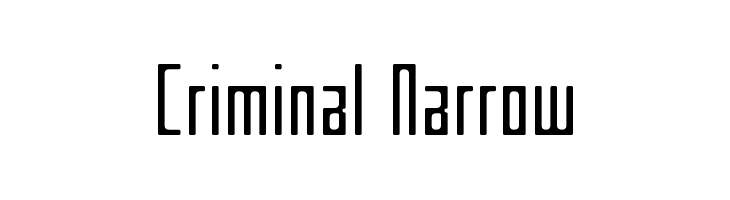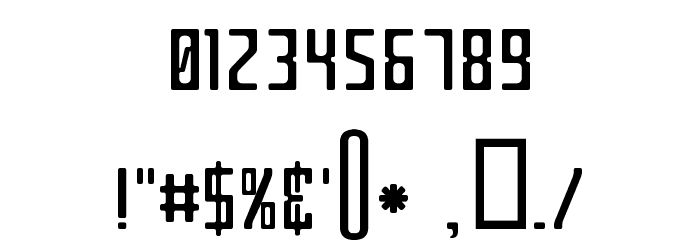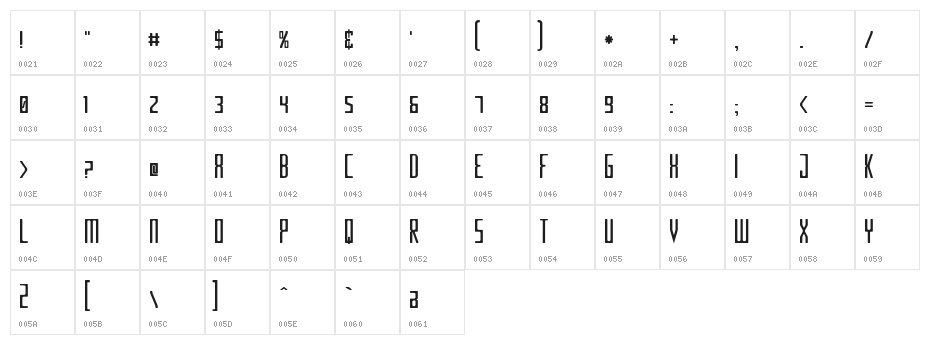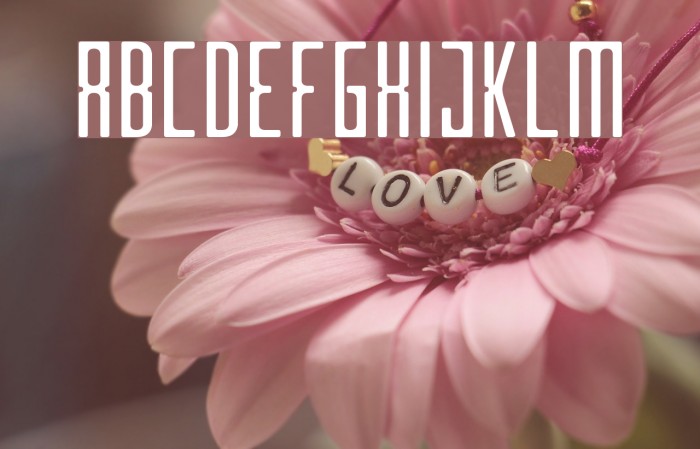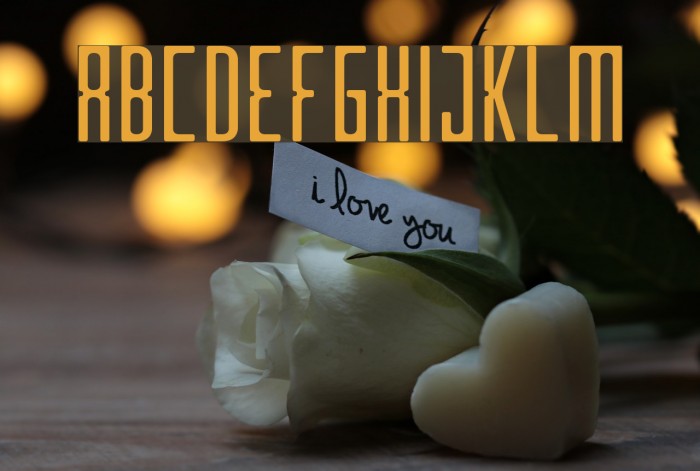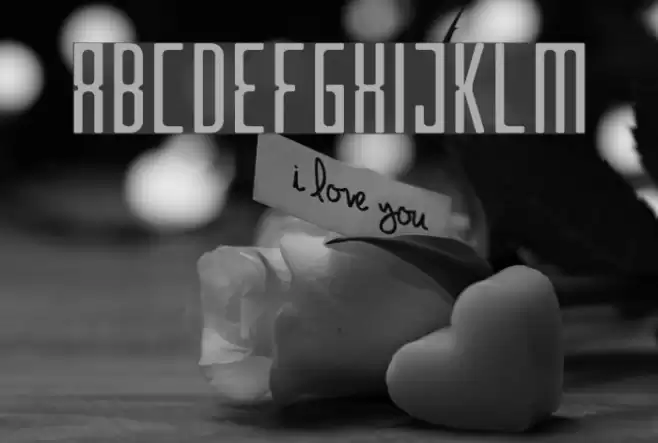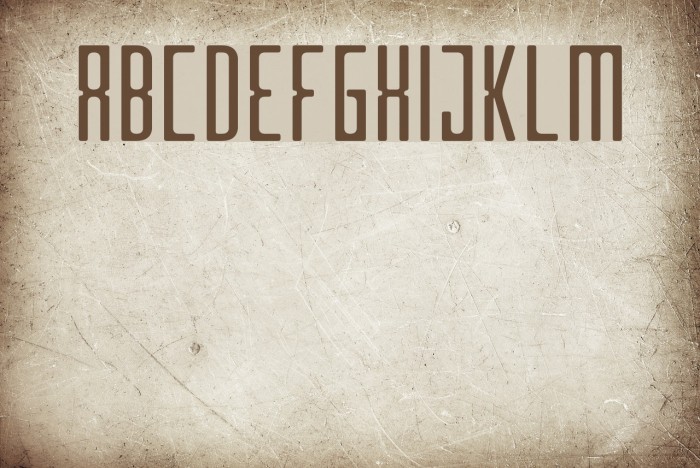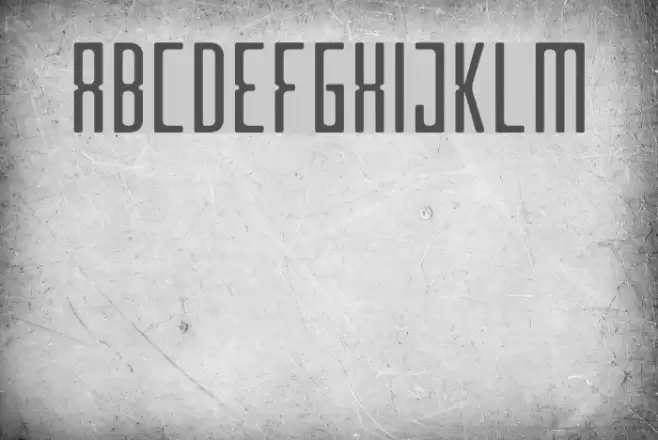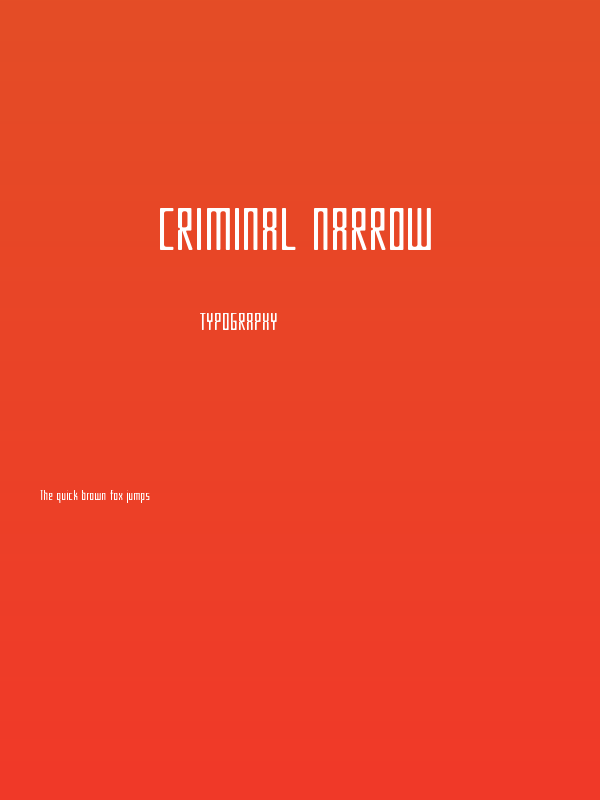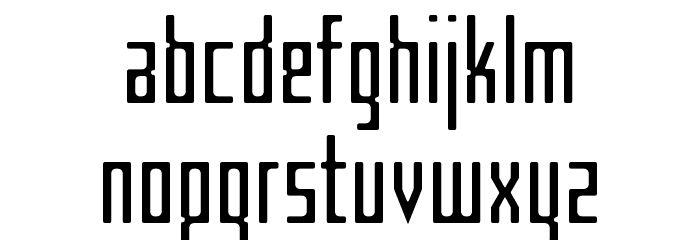
Criminal Narrow Font
Criminal Narrow Description
This font features a narrow, elongated design with a modern and slightly industrial feel. The characters are tall and condensed, giving a sleek and efficient appearance. The uppercase and lowercase letters maintain a consistent height, contributing to a uniform look. The numbers and special characters are designed to match the overall style, with clean lines and minimal embellishments. This font's geometric structure and narrow width make it suitable for creating a strong visual impact while maintaining readability.